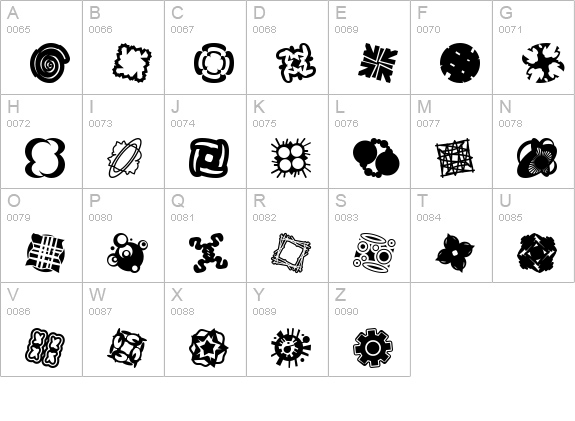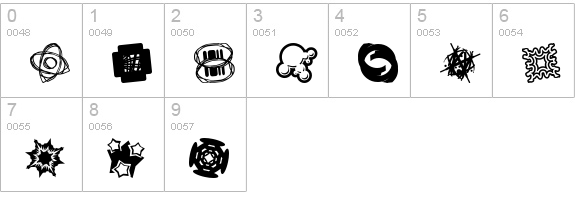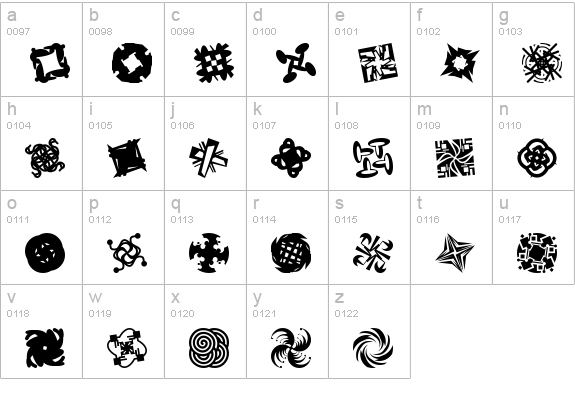
Patternalia Font Details
Introducing Patternalia, a breathtakingly beautiful font that will captivate your imagination and bring your designs to life. With its intricate patterns and delicate strokes, Patternalia is the perfect choice for those seeking a font that exudes elegance and sophistication. This versatile font is suitable for a wide range of creative projects, from logo designs to invitations, posters, and everything in between. Its unique patterns add a touch of charm and individuality, making your designs stand out from the crowd. Patternalia is not just visually stunning; it is also incredibly easy to use. Its clean and well-defined lines ensure legibility, even at small sizes. Whether you're a seasoned designer or just starting out, Patternalia will effortlessly enhance your creations. And the best part? Patternalia is completely free! Yes, you read that right. This extraordinary font is freely available to download at FontsMarket.com, making it accessible to all creative minds who are passionate about their craft. So why wait? Unlock the limitless possibilities of Patternalia and let your creativity soar. Download this remarkable font today and experience the joy of design without any limitations. With Patternalia, the world is your canvas, and every stroke tells a story.